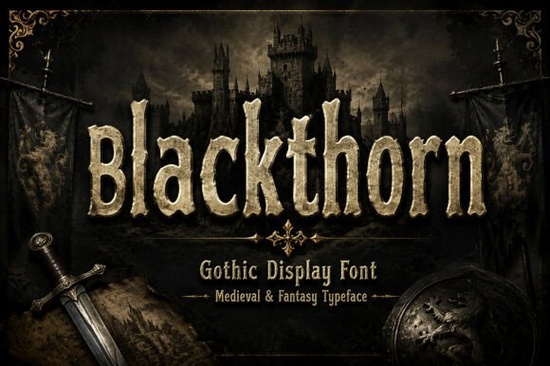
If you're working on a dark fantasy book cover or a gothic band logo, Blackthorn Font gives you that sharp medieval look without the hassle of designing calligraphy from scratch. This bold, atmospheric typeface draws from blackletter tradition and vintage handcrafted details, making it a solid choice for projects that need a strong gothic or historical feel. Whether you're a print-on-demand seller, a hobbyist crafter, or a designer building a fantasy brand, this font aims to deliver authentic charm with modern usability.
What makes Blackthorn Font different from other gothic fonts?
Many blackletter fonts can feel stiff or too decorative to read. Blackthorn balances dramatic strokes with legible uppercase and lowercase characters, so your message stays clear while still looking like it belongs in a medieval scroll. The handcrafted texture adds a slight vintage roughness, which helps it stand out on digital screens and printed products. Plus, it comes with numbers, punctuation, and multilingual support, so you can use it for international projects without missing characters.
How can I use Blackthorn Font in my own projects?
Because Blackthorn is a display font, it works best at larger sizes where the sharp details and thick strokes shine. Here are some popular ways to put it to work:
- Fantasy book covers and movie posters – The gothic feel instantly signals a dark, epic story.
- Gaming titles and RPG assets – Use it for quest names, character labels, or menu headers.
- Medieval branding and logos – Breweries, taverns, or historical reenactment groups can use it for a authentic old-world look.
- Gothic merchandise – T-shirts, hoodies, mugs, and stickers with a dark aesthetic.
- Packaging and labels – Vintage-style product packaging for candles, soaps, or artisan foods.
- Halloween and horror designs – Flyers, invitations, or social media graphics for spooky events.
Absolutely. The thick, bold strokes hold up well on apparel prints, mugs, and posters. Since it’s a display typeface, it’s ideal for short text that needs to grab attention. For longer paragraphs, pair it with a simpler sans-serif or serif font to keep readability high. Many POD sellers use Blackthorn for quote designs, brand names, and crest-style graphics.
Tip: Use Blackthorn in all caps for a more dramatic, traditional blackletter look. For a slightly softer feel, mix uppercase for the first letter and lowercase for the rest.
What other font styles pair well with Blackthorn?
Since Blackthorn is ornate and dark, it pairs best with clean, minimal fonts. Try a thin sans-serif like Inkvera Font for contrast, or a textured vintage font like Crossing Texture Font to match the handcrafted feel. For lighter seasonal projects, Summer Books Font offers a friendly, hand-drawn style that balances Blackthorn’s heaviness. And if you need a grungy alternative for posters, Drip Haus Font gives a more street-art gothic edge.